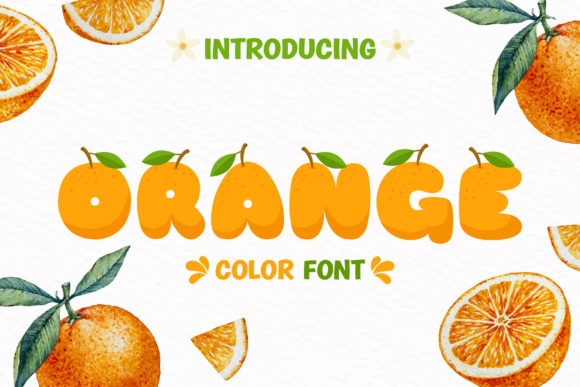
Introducing Orange Font: The Vibrant Addition to Your Creative Arsenal
Unleash the effervescent energy of summer with Orange Font, a captivating display font that will infuse your designs with a burst of freshness and joy. Dive into a world of vibrant colors, where each letter dances with a fruity zest, evoking the sweet memories of sun-kissed days and balmy summer nights.
Orange Font: A Symphony of Color and Creativity
With its unique fruit-inspired design, Orange Font is not just a collection of letters; it's a symphony of colors that will ignite your imagination and elevate your designs to new heights. Picture your logos, posters, social media graphics, and website headers adorned with the playful charm of Orange Font, captivating your audience with its vibrant energy.
Add an Irresistible Touch to Your Designs
Whether you're a seasoned designer or just starting your creative journey, Orange Font is the perfect tool to add an irresistible touch to your projects. Its playful and cheerful vibe is sure to leave a lasting impression, making your designs stand out from the crowd. Let Orange Font be your secret weapon to create visuals that resonate with your audience and leave them wanting more.
A Font That Speaks to Your Brand's Identity
In a world saturated with sameness, your brand needs a voice that speaks to its unique identity. Orange Font is more than just a font; it's a reflection of your brand's personality and values. Its vibrant colors and playful style will communicate a sense of joy, optimism, and creativity, leaving a lasting impression on your customers.